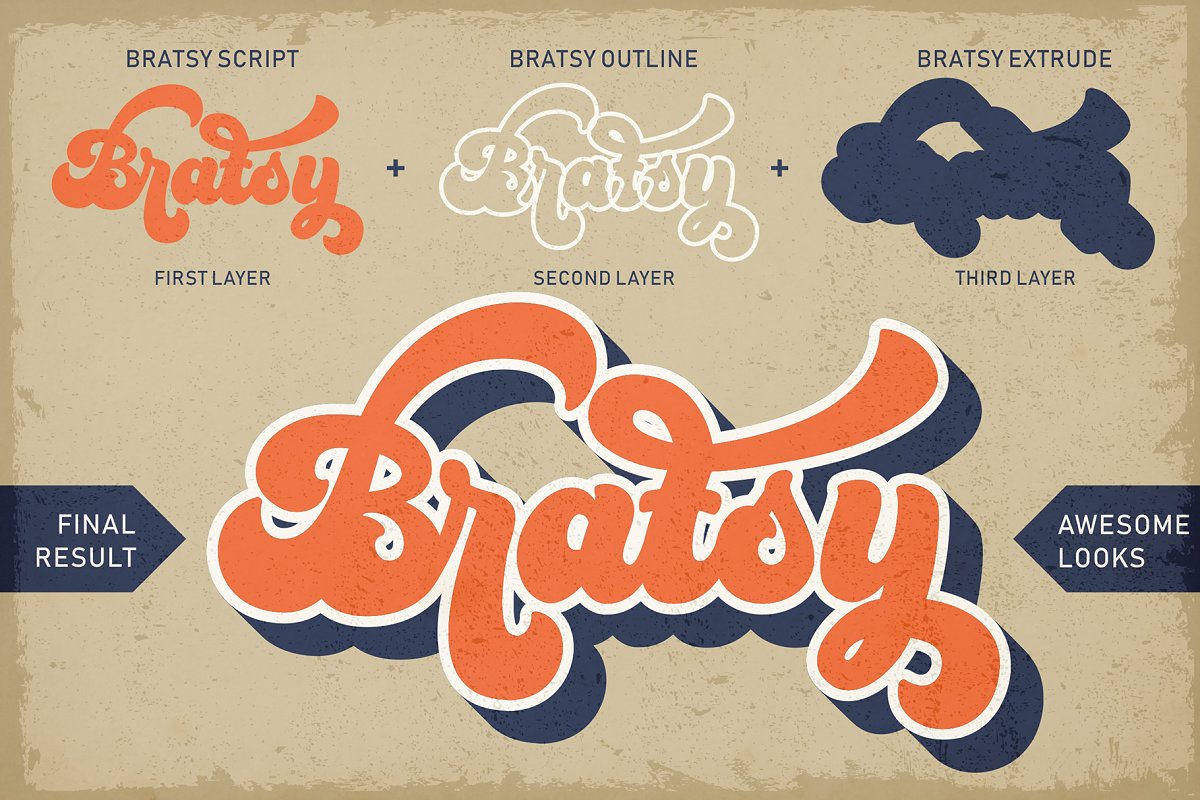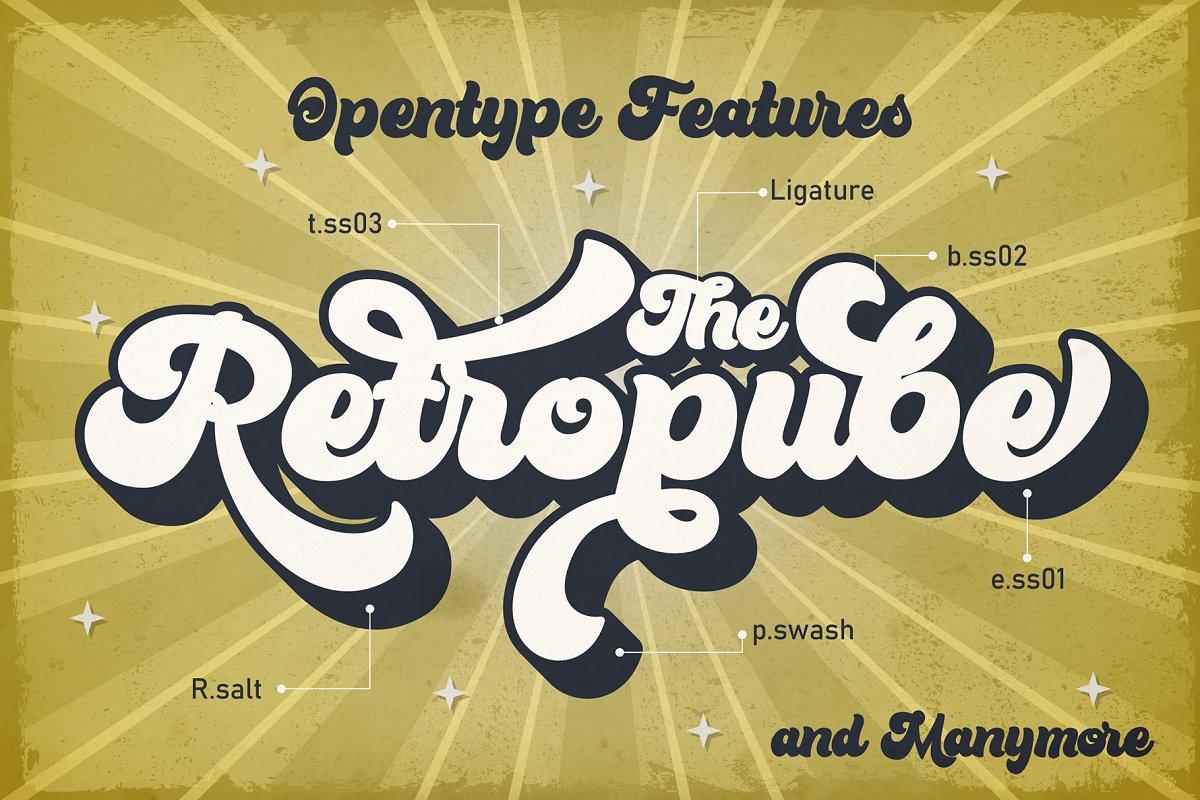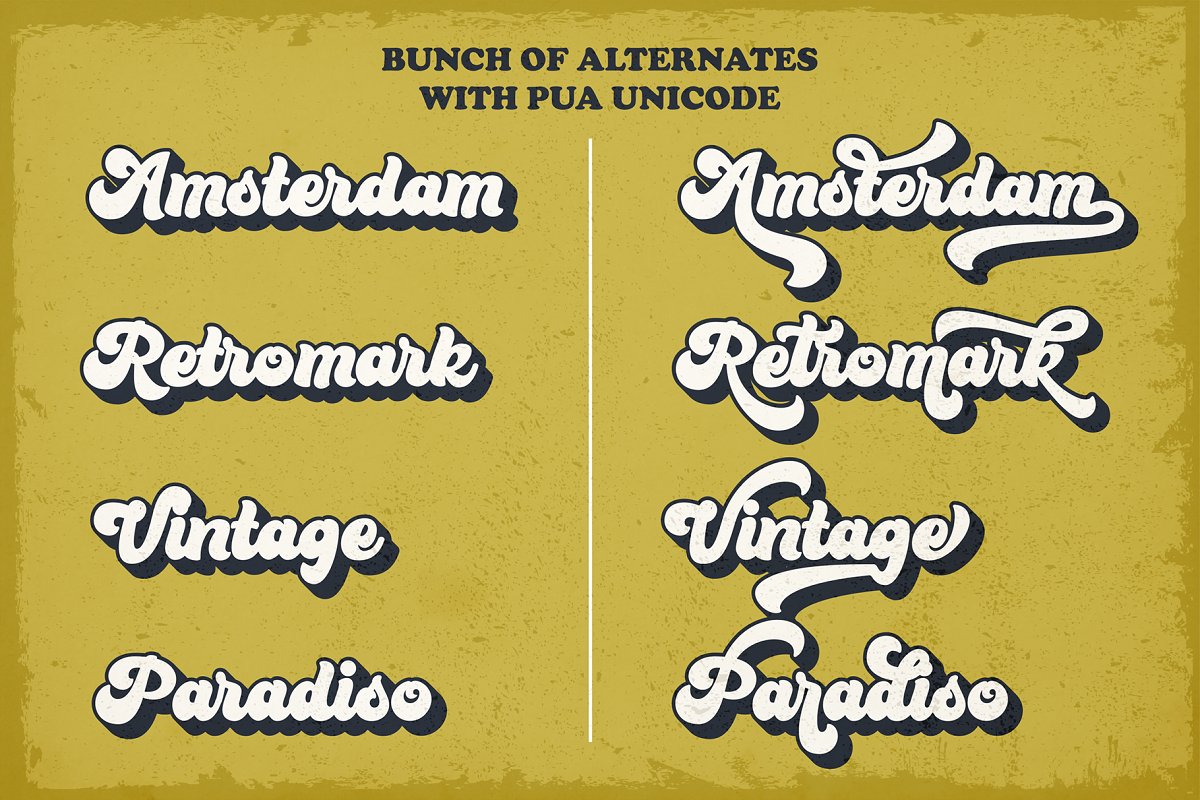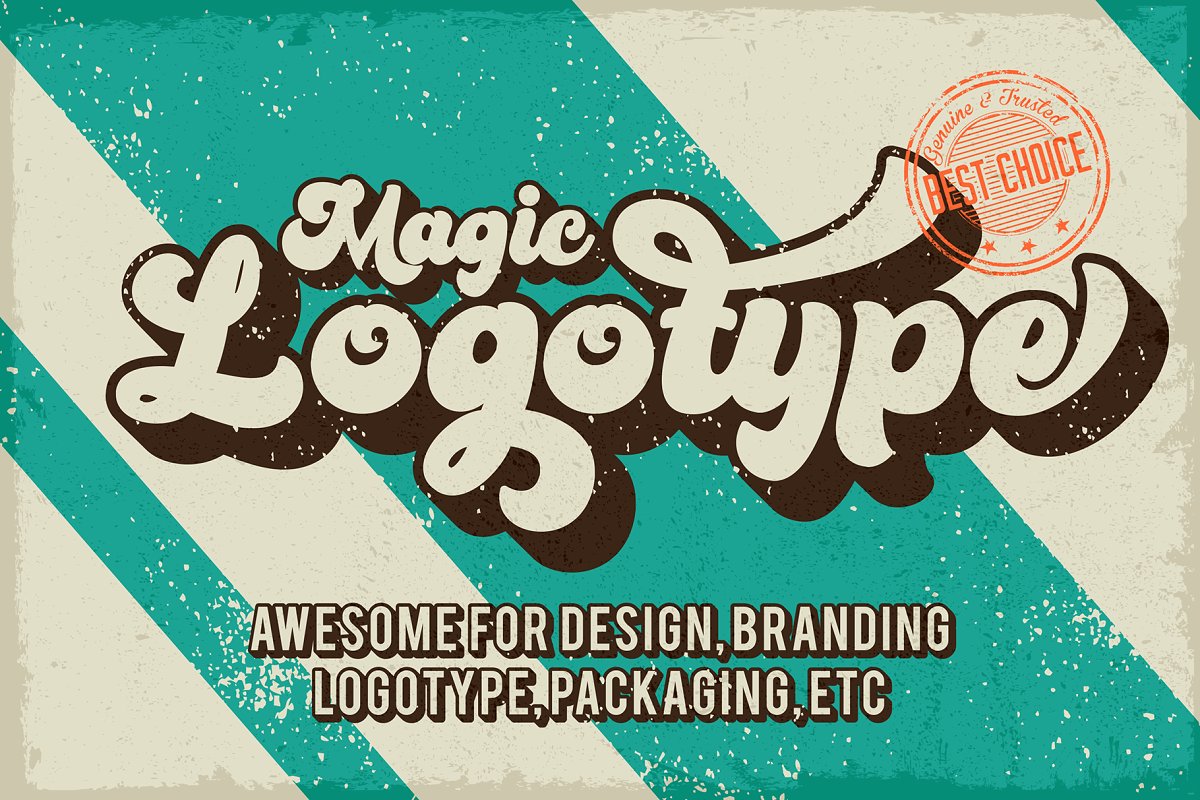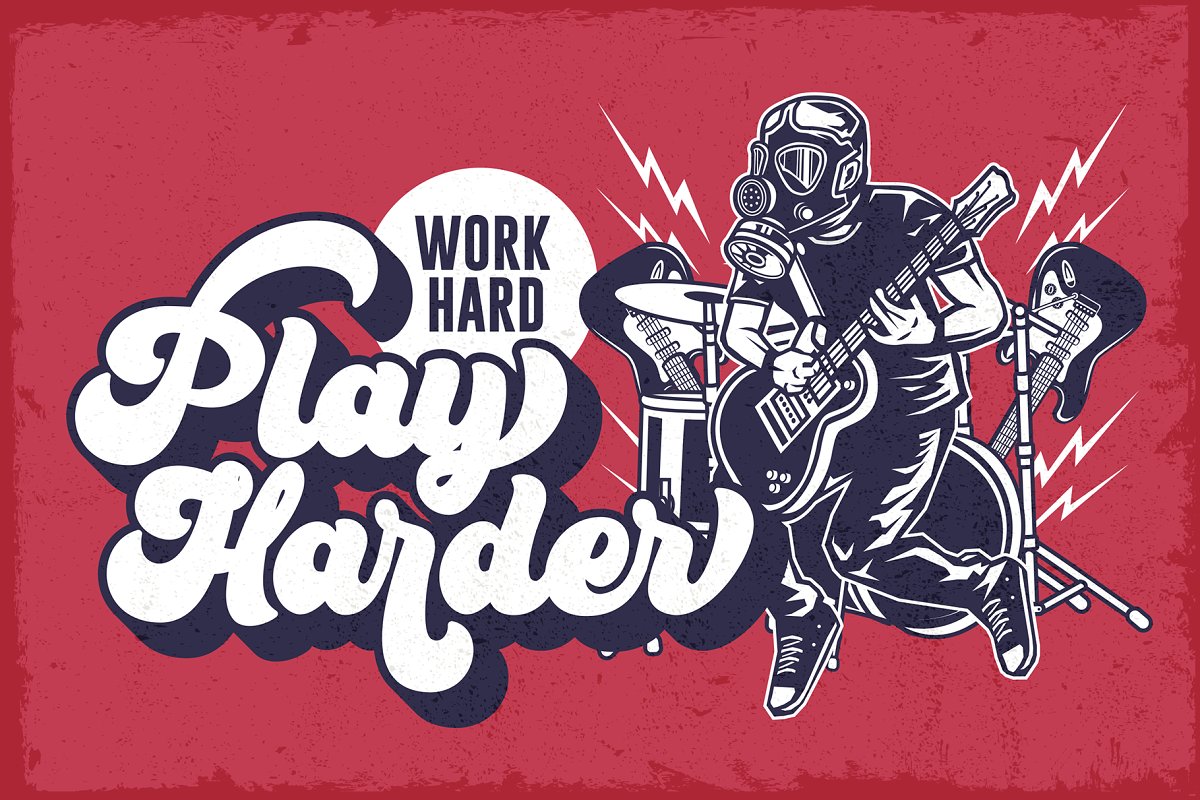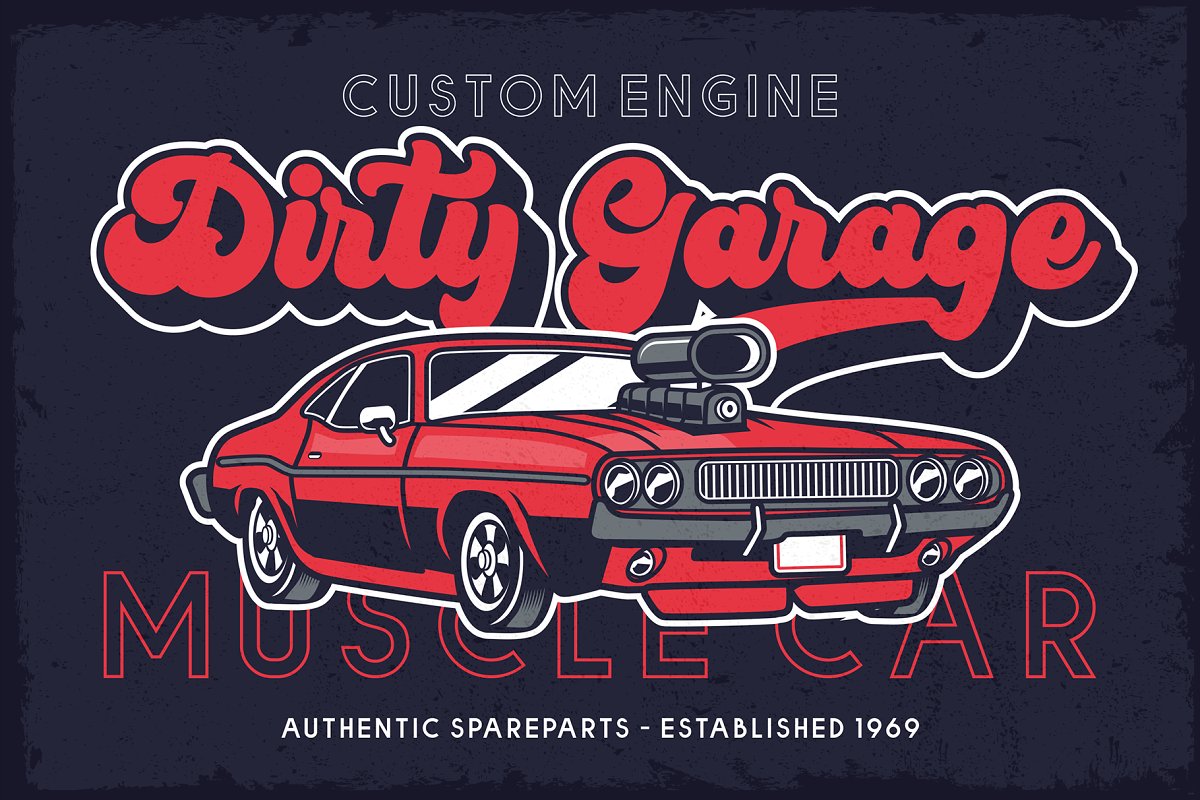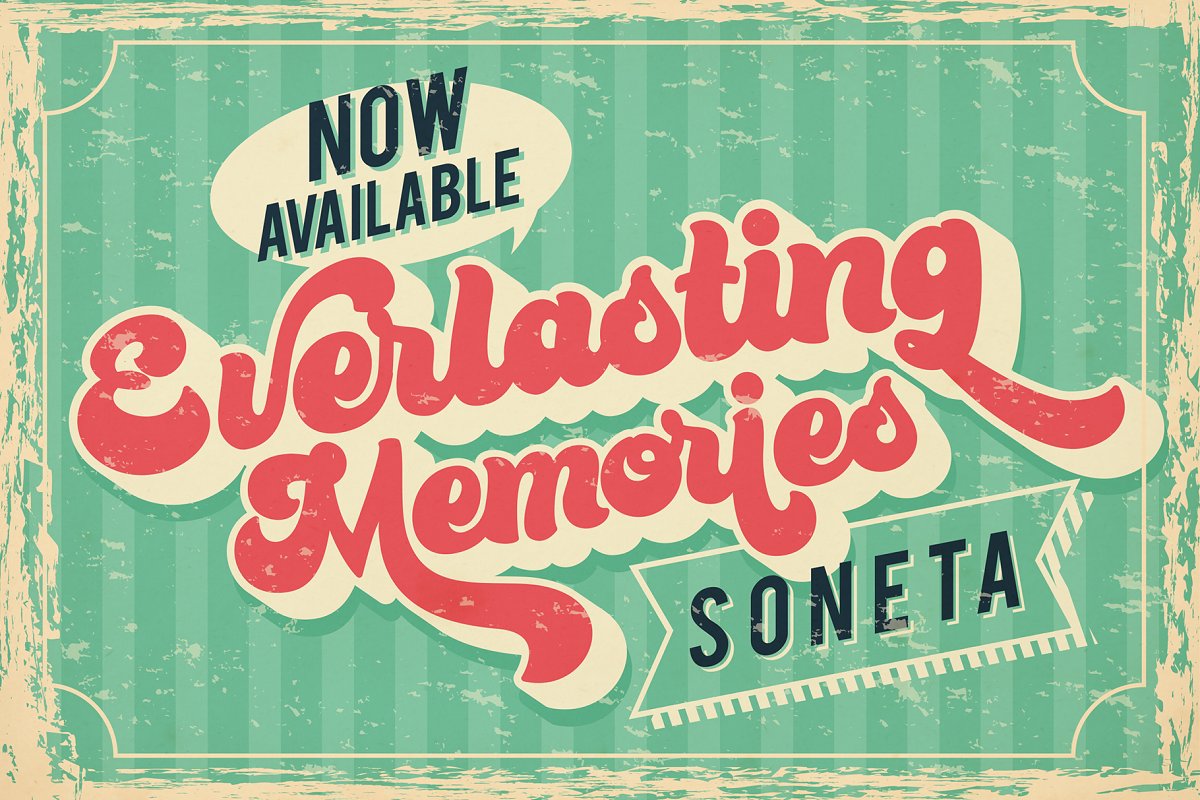
Bratsy Script Layered Retro Font Family Free Download
About the Bratsy Script Layered Retro Font
The Bratsy Script is a layered bold script with the outline and extrude, inspired by a Retro aesthetic, Made in combination with hand lettering, it comes with dramatic movement and it’s great for any next creative project that needs a retro vibe or modern touch, Ideal for logos, handwritten quotes, product packaging, header, poster, merchandise, social media & greeting cards